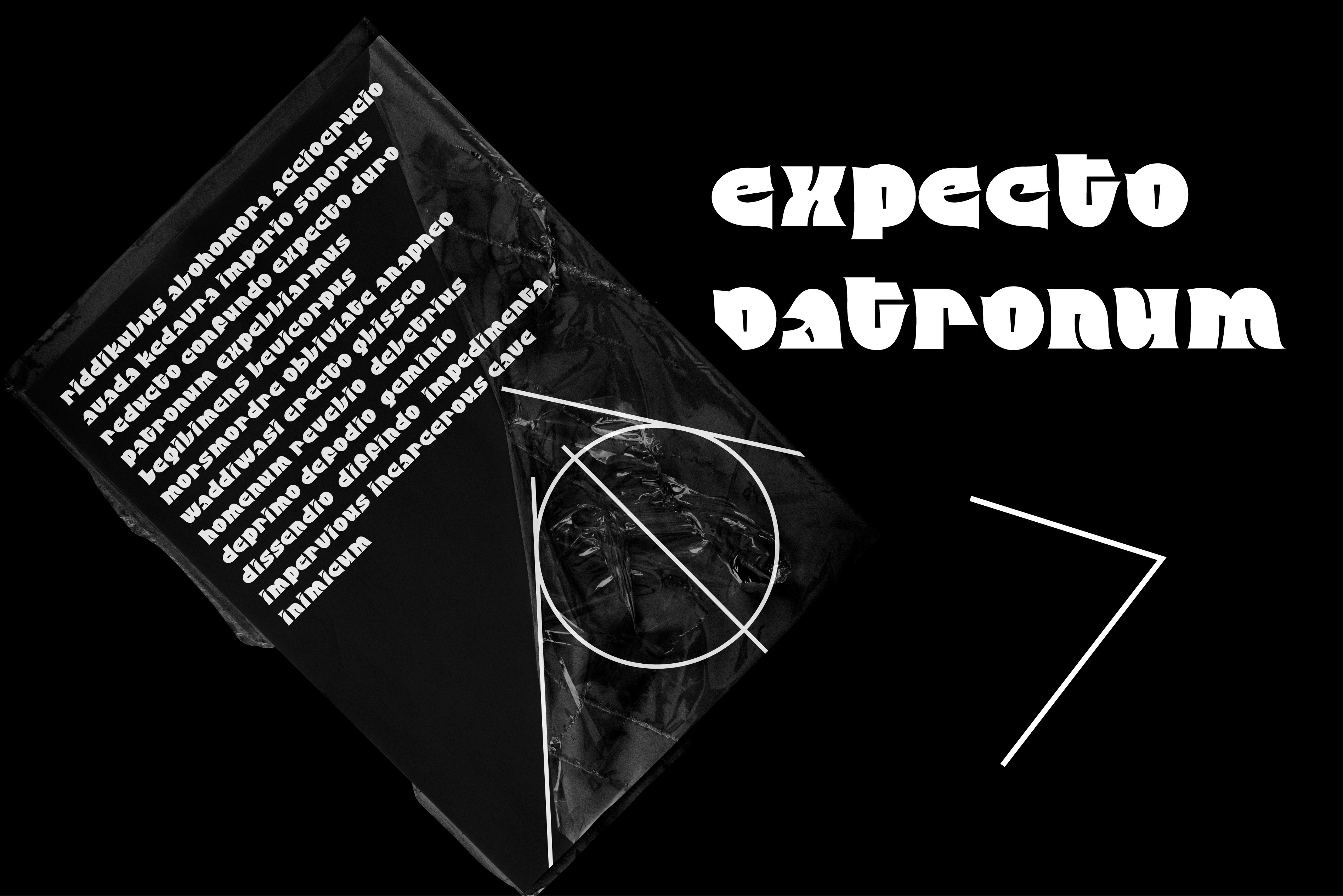
Fedorro Display Font
We are proud to present to you our new Latin+Cyrillic font Fedorro! Fedorro typeface is a classy example of a modern Ukrainian style of type design. It is inspired by traditional fonts of the past, but with a strong modern twist to its appearance. The main feature of this font are round and playful letters combined with a relatively tiny negative space, making it unique like no other: many typeface elements were borrowed from historical exemplars of Ukrainian handwritten letters and redesigned with modern trends in mind.